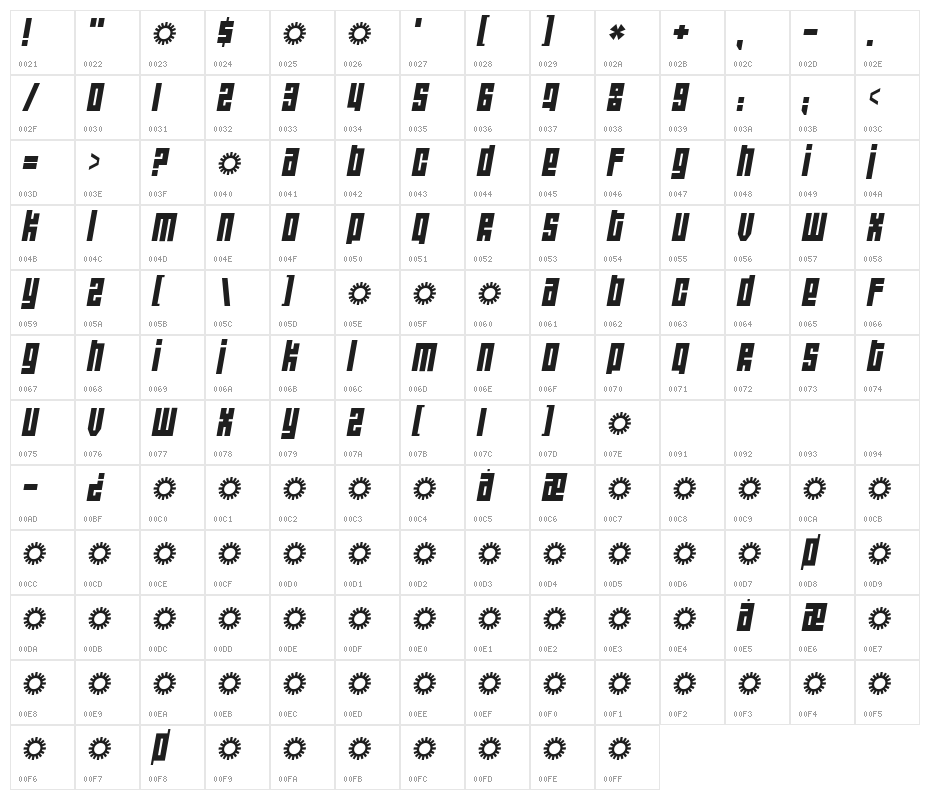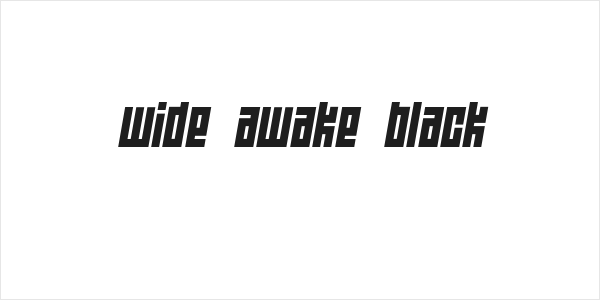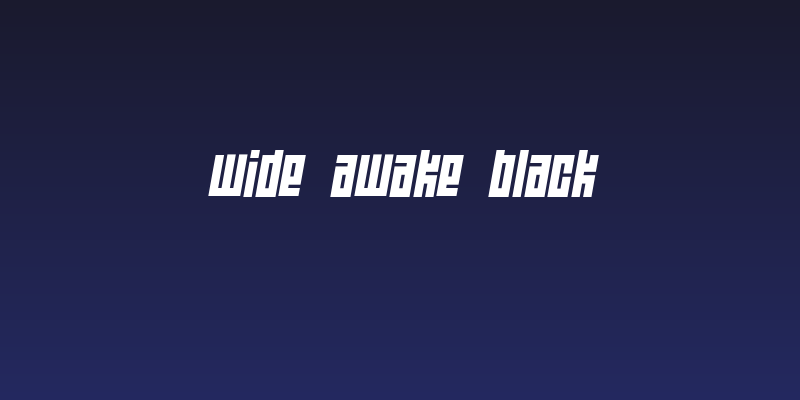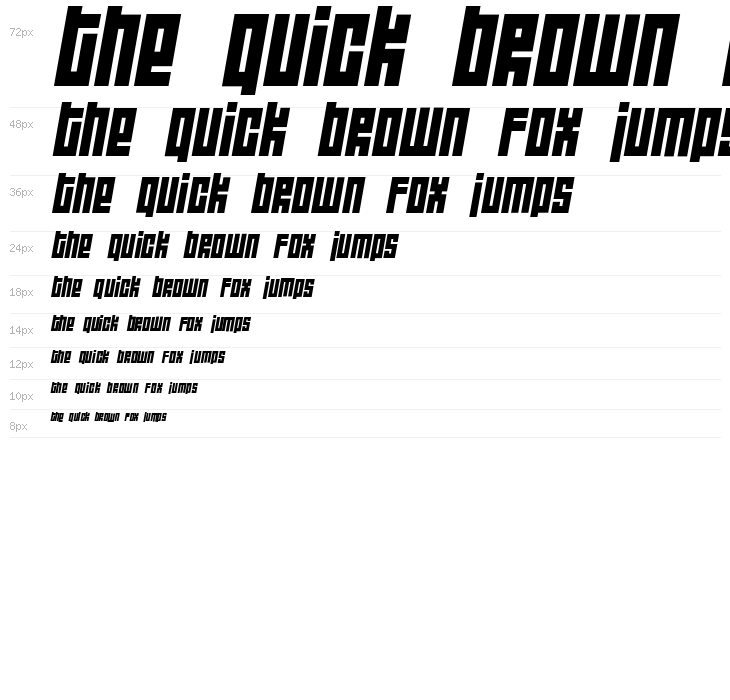
Wide awake Black Font
Wide awake Black Description
This font features a bold and dynamic style with a strong geometric influence. The characters are sharply angled, creating a sense of movement and energy. The uppercase and lowercase letters maintain a consistent height, contributing to a uniform appearance. The numbers and special characters follow the same angular theme, ensuring cohesion across all elements. The boldness of the strokes and the condensed width make it stand out, ideal for attention-grabbing designs.
| Proposed Projects | Perfect for sports branding, posters, and dynamic headlines. |